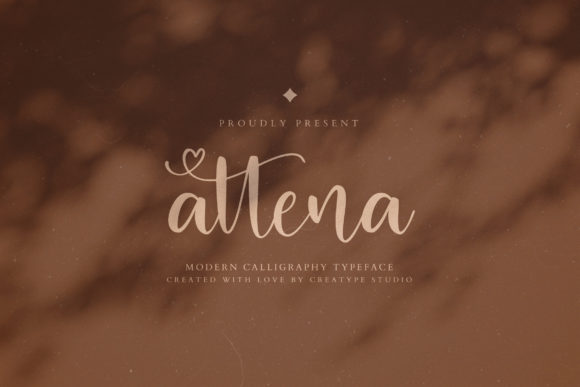
Step into the realm of elegance and grace with Attena Font, a captivating script font that will transform your creative visions into breathtaking realities. Designed by the talented CreatypeStudio, Attena is a masterpiece crafted for those seeking fonts that embody sophistication and charm.
Immerse yourself in the world of Attena, a font that exudes a sweeping, handwritten style. Its carefully crafted curves and delicate flourishes evoke a sense of timeless beauty, perfect for adding a touch of enchantment to your designs. Whether you're creating wedding invitations, branding for your boutique, or crafting heartfelt messages, Attena will elevate your words with its inherent grace.
With Attena, you'll discover a font that is not just visually stunning, but also remarkably versatile. Its carefully balanced strokes and harmonious proportions lend themselves to a wide range of design applications. From elegant logos that demand attention to eye-catching social media graphics, Attena effortlessly adapts to your creative needs.
Experience the ease and convenience of Attena's PUA encoding. This innovative feature allows you to effortlessly access all of the font's glyphs and swashes, expanding your creative possibilities and enabling you to incorporate intricate details and flourishes into your designs with unmatched simplicity.
Unlock the true potential of Attena and witness the transformation of your creative projects. Unleash your imagination and let Attena guide you towards designing masterpieces that captivate and inspire. Prepare to be amazed by the stunning outcomes that this exceptional font will generate, leaving an unforgettable mark on your audience.